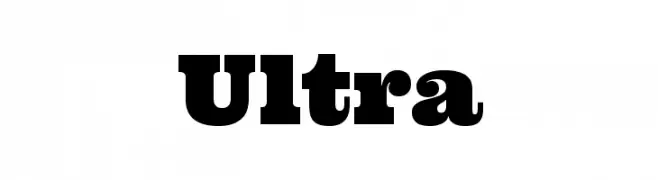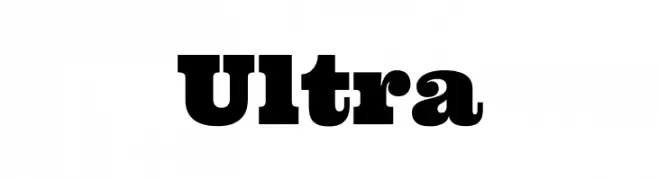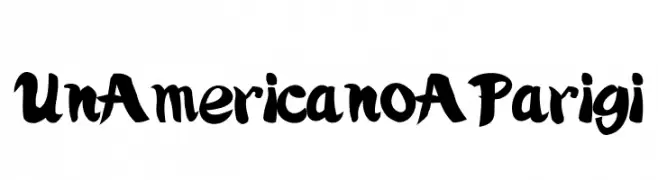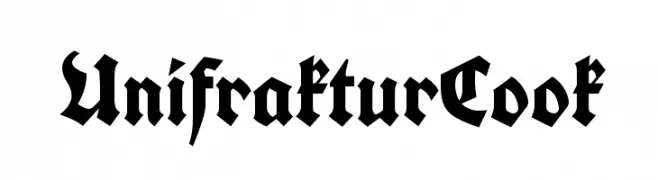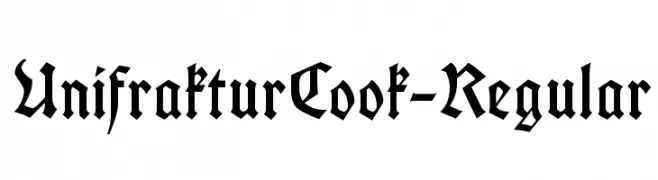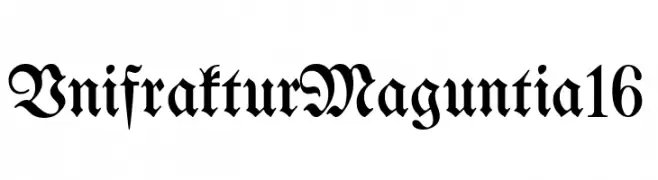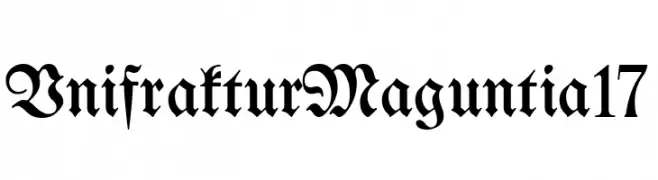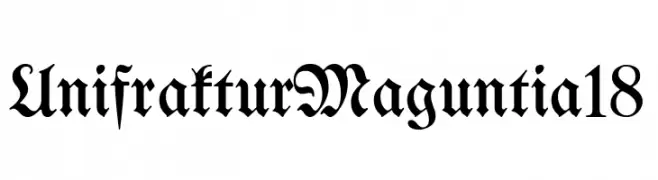
A bold slab serif font with strong, block-like serifs and high contrast.
A bold, slab serif font with a vintage yet modern appeal.
A bold, playful handwritten font with dynamic, slanted characters.
A bold Blackletter font with sharp, angular lines and a medieval aesthetic.
A bold Blackletter font with intricate, angular strokes and a medieval aesthetic.
A traditional blackletter font with ornate, gothic letterforms.
A bold, ornate Blackletter font with a Gothic, medieval style.
A traditional blackletter font with intricate detailing and historical elegance.
A traditional blackletter font with ornate, dramatic letterforms.
A bold and ornate blackletter font with intricate details and a historical aesthetic.